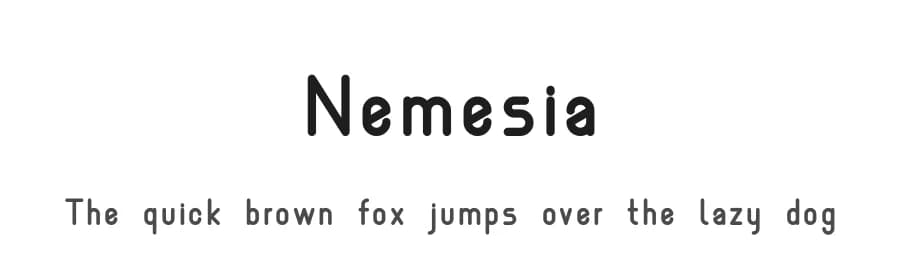
About Nemesia Font
Nemesia is a sans-serif font designed by Rémi Lagast. It includes 93 glyphs, a bold weight, TTF (TrueType) format, and 89 languages. Nemesia is free to download; check the license details on this page before commercial use. Sans-serif fonts like Nemesia work best for clean body text, user interfaces, branding, and modern layouts.
Nemesia Font is a versatile sans-serif font that works for both headings and body text. Pair it with a contrasting serif or slab serif font to add visual interest and a clear distinction between titles and body copy.
Nemesia Font
by Rémi Lagast